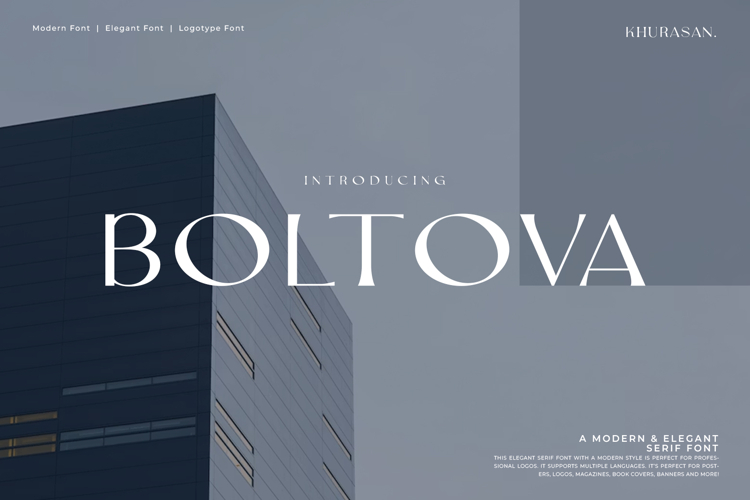
Boltova is a sophisticated serif font crafted for creators who demand confidence and class in their typography. With refined contrast, sharp serifs, and perfectly balanced proportions, this typeface seamlessly blends timeless sophistication with contemporary style.
The result is a luxurious, editorial, and powerful font that excels in branding, logos, fashion projects, invitations, websites, and high-end social media visuals. Every curve delivers both clarity and beauty, creating a premium aesthetic that instantly elevates any design.
Whether showcased in bold titles or integrated into stylish layouts, Boltova brings an unmistakable sense of refinement to your creative work.